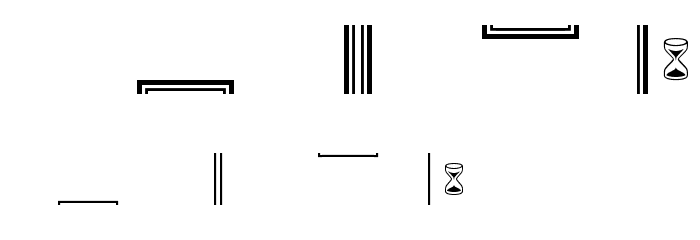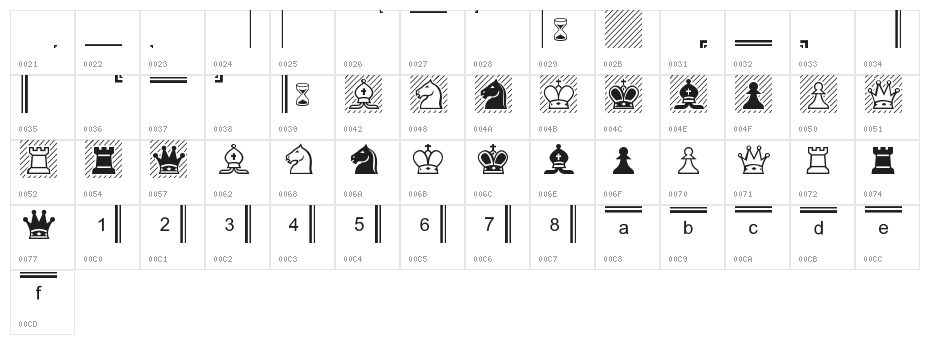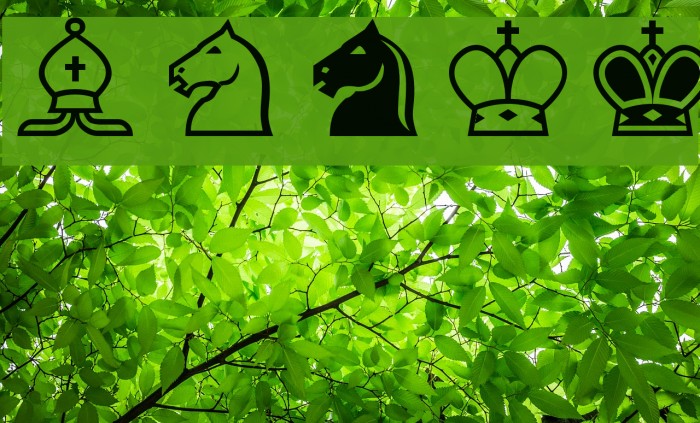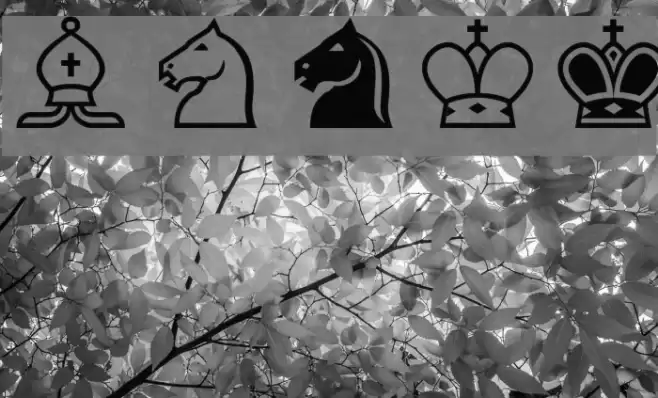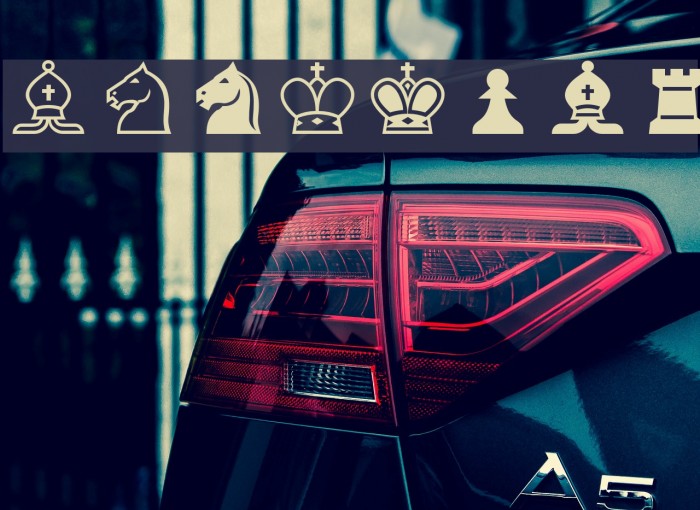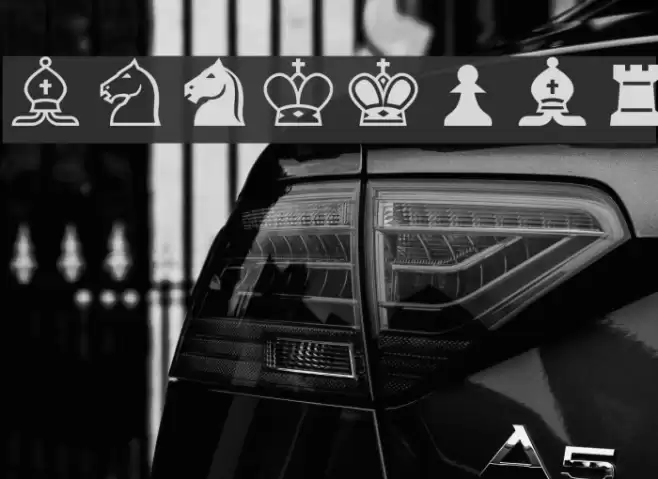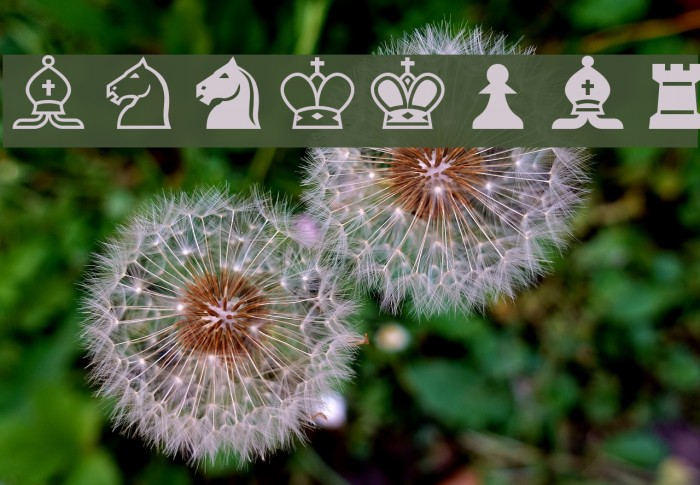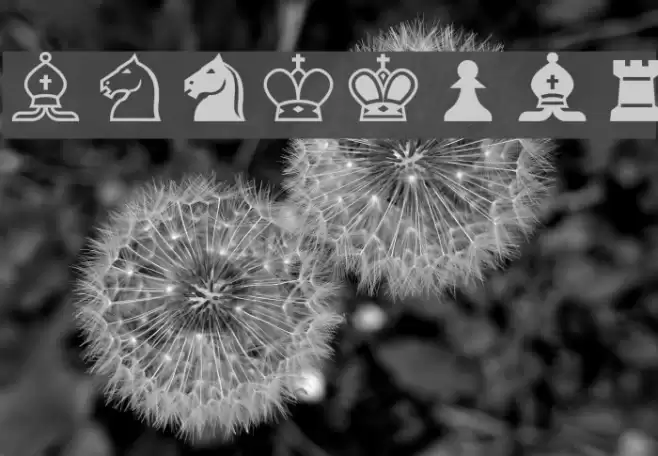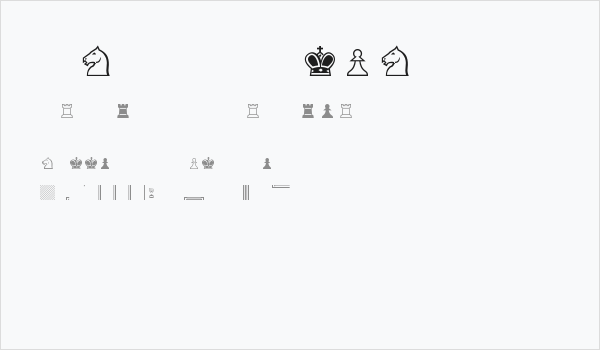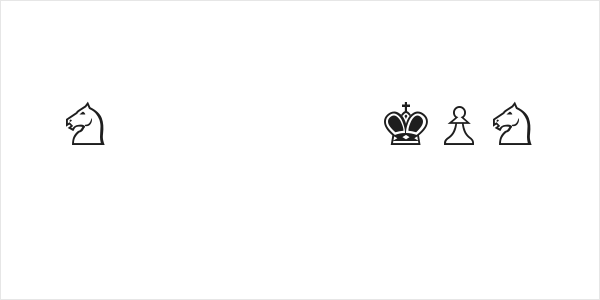
Chess-Alpha Font
Chess-Alpha Description
This is not a valid font. The image contains chess piece icons rather than a traditional alphabetic or numeric font. Each icon represents a different chess piece, such as bishops, knights, rooks, queens, and kings, depicted in both black and white variations. The icons are stylized with a mix of solid and outlined designs, some enclosed in a striped background. These symbols are more suited for use in chess-related applications rather than typographic purposes.